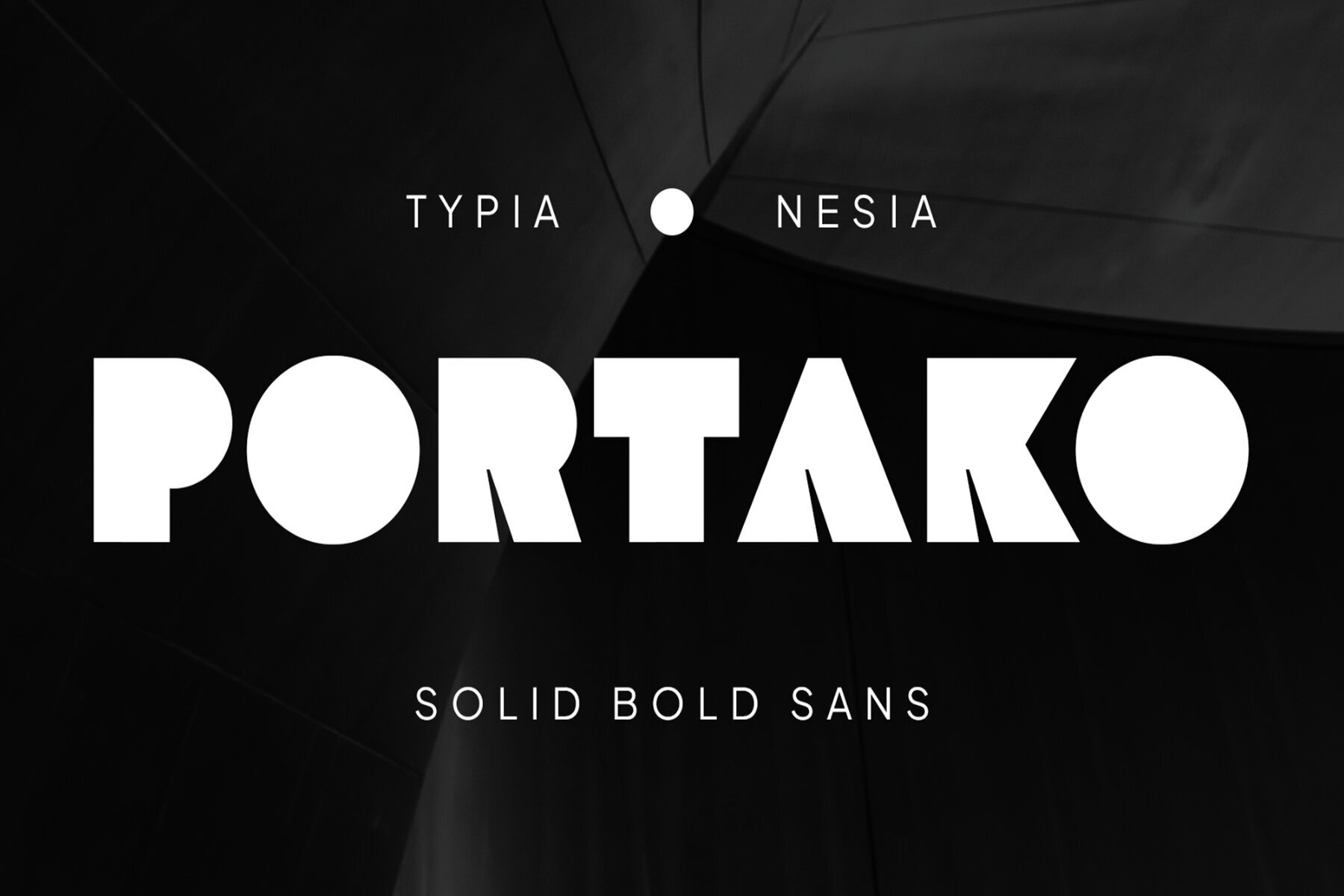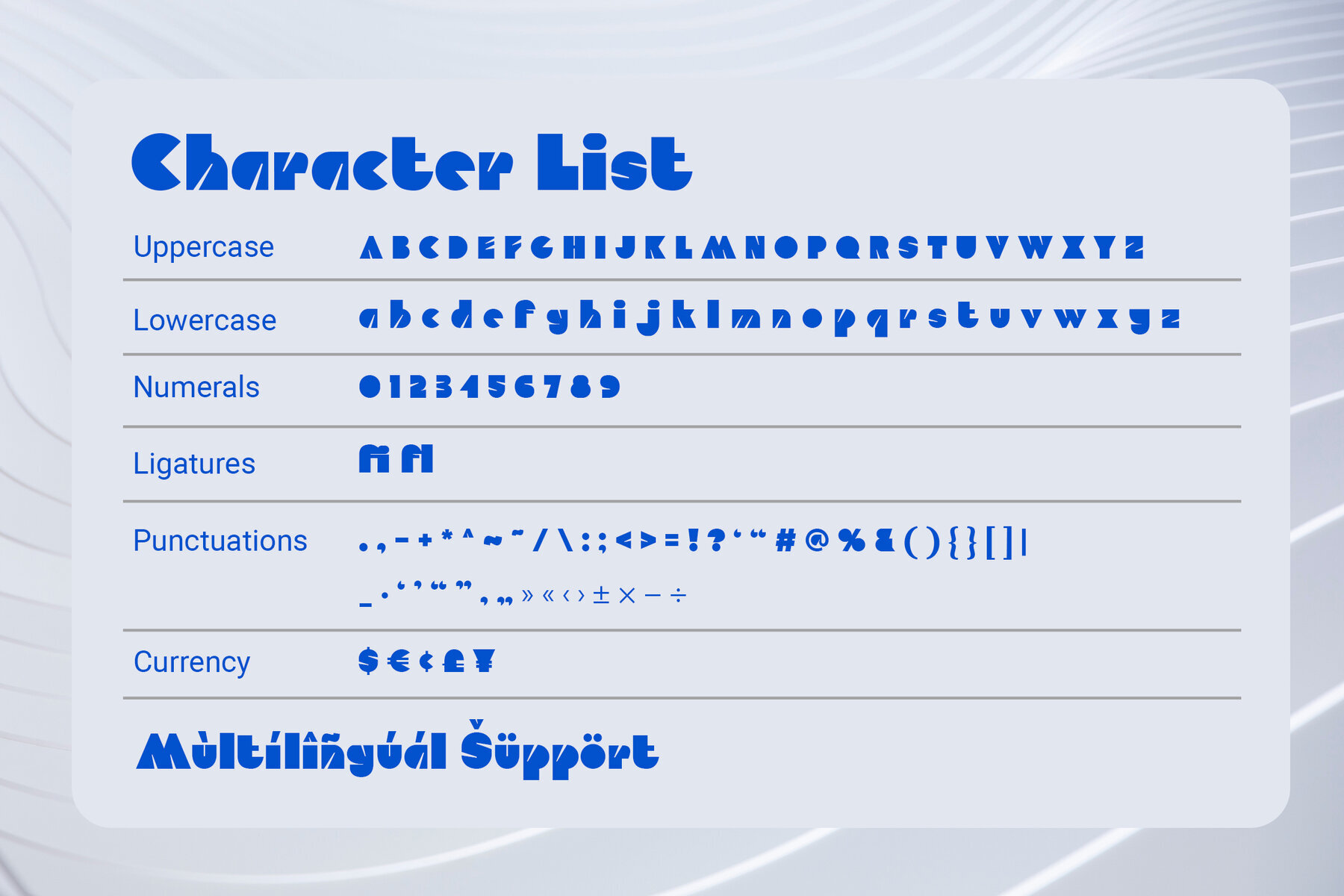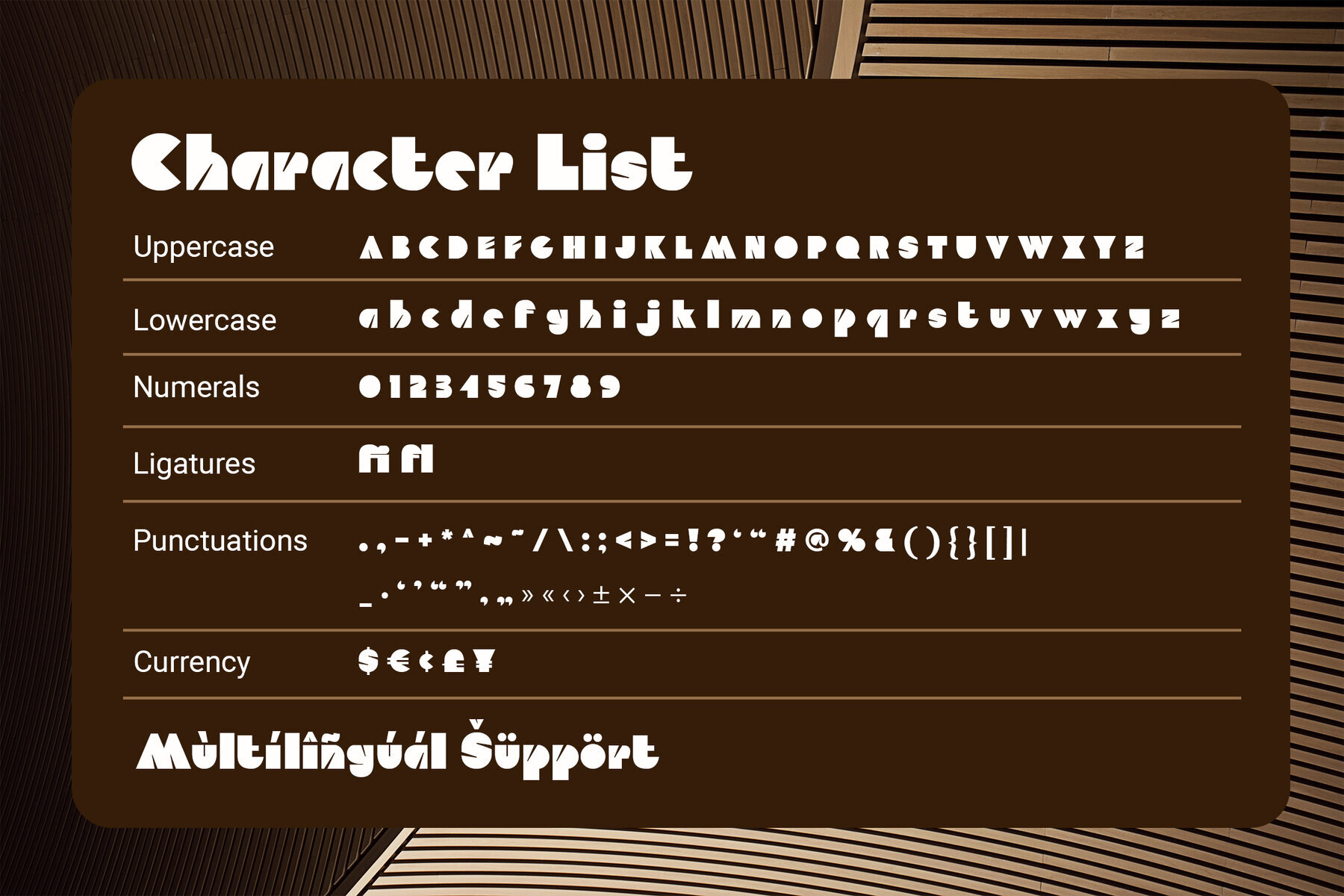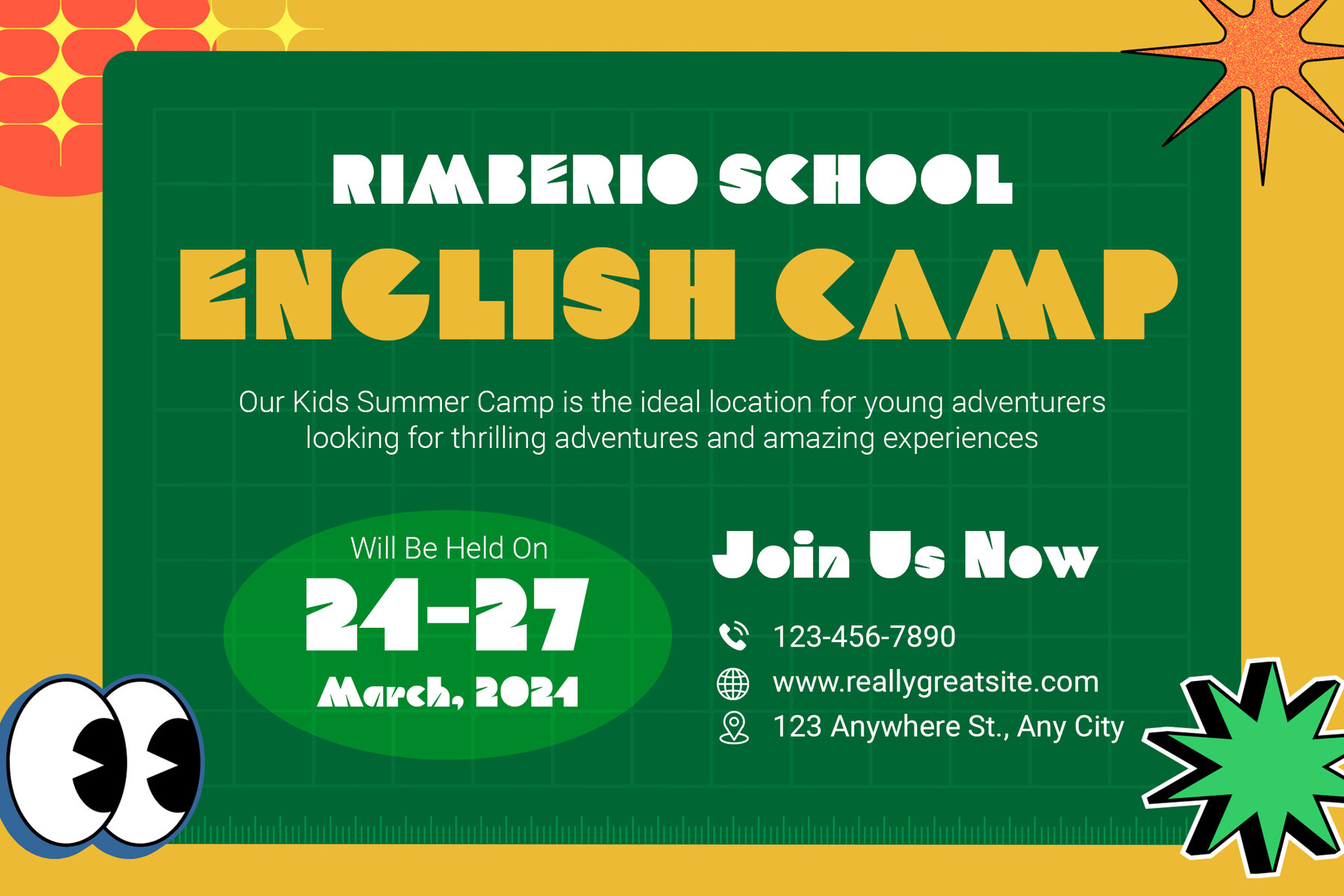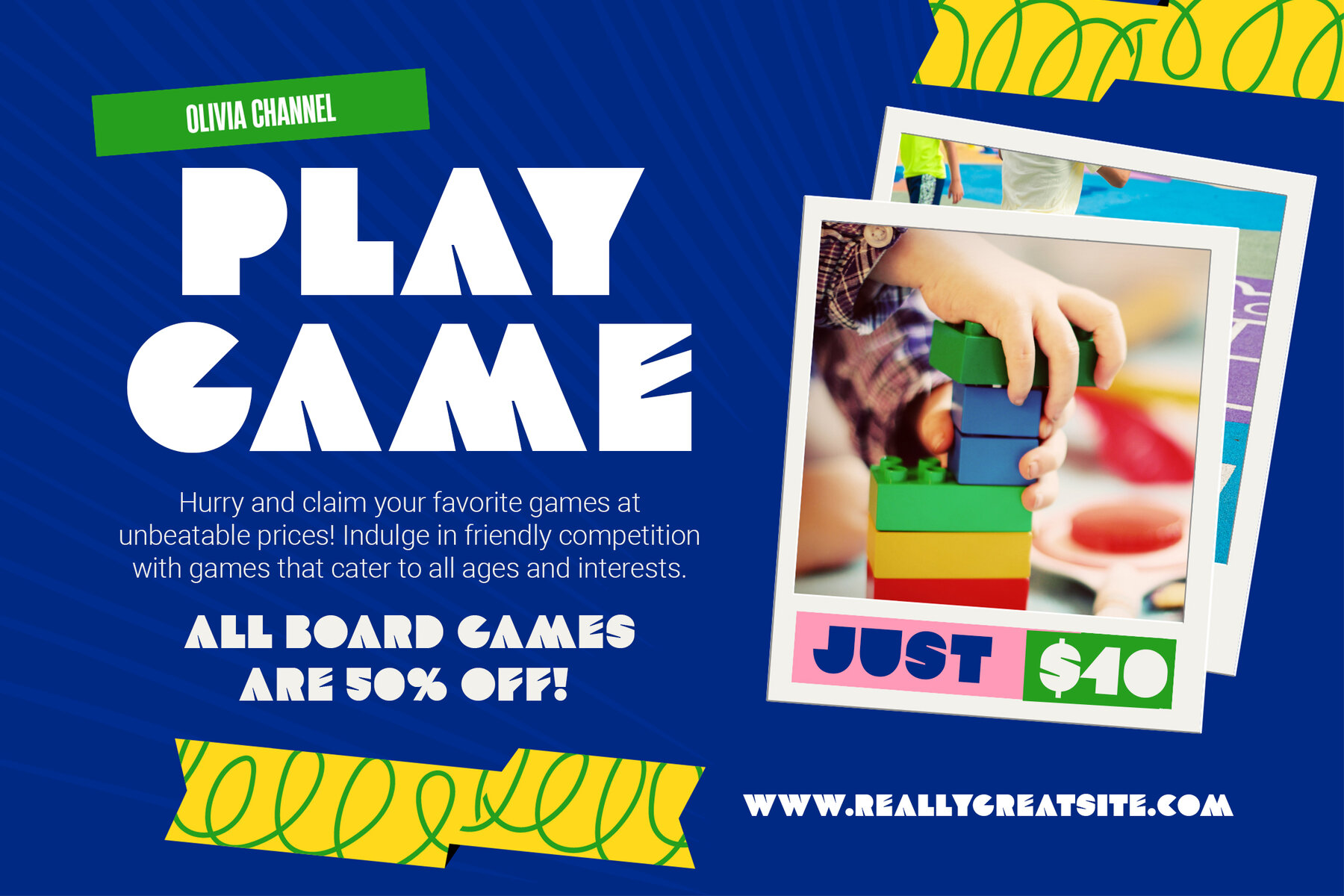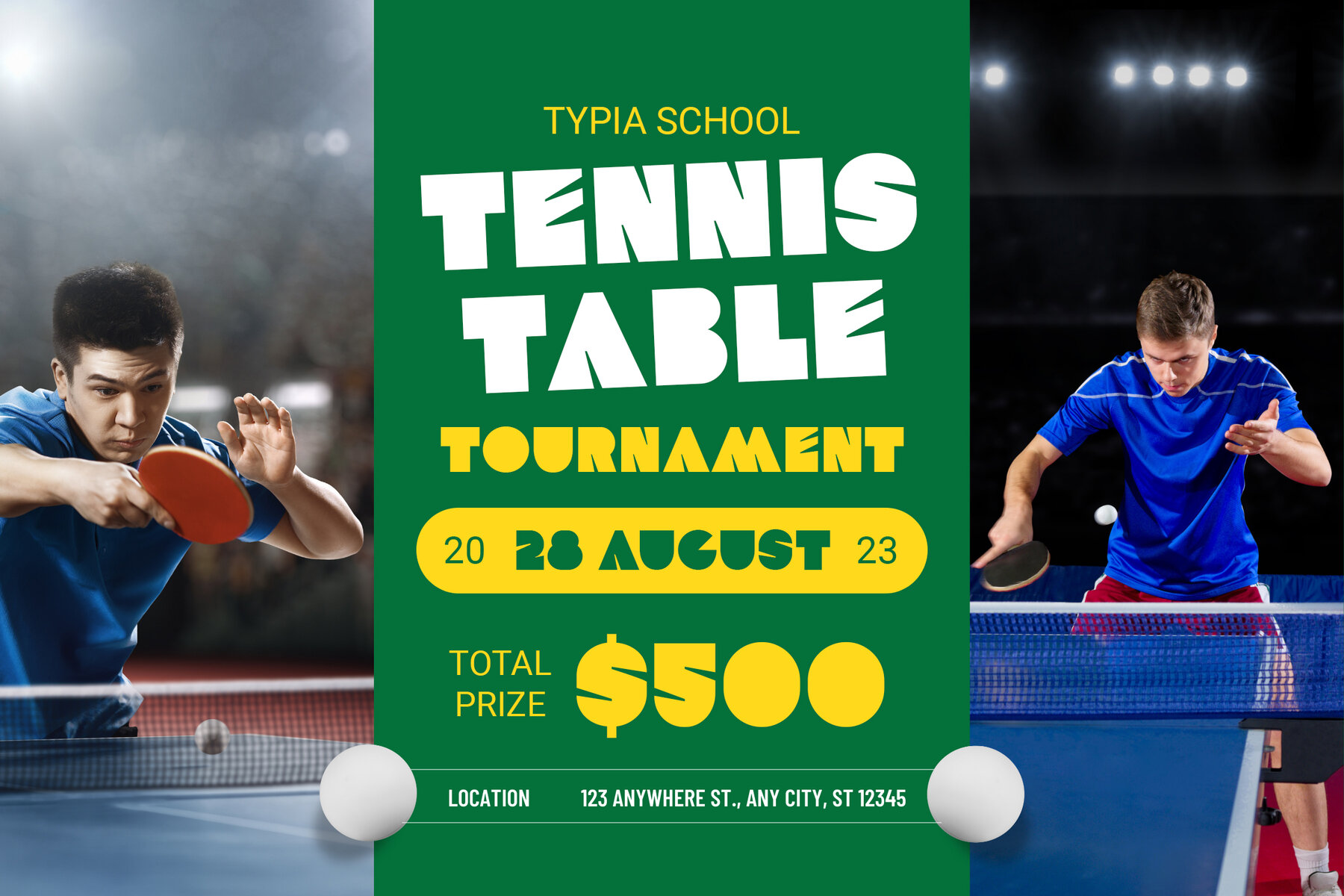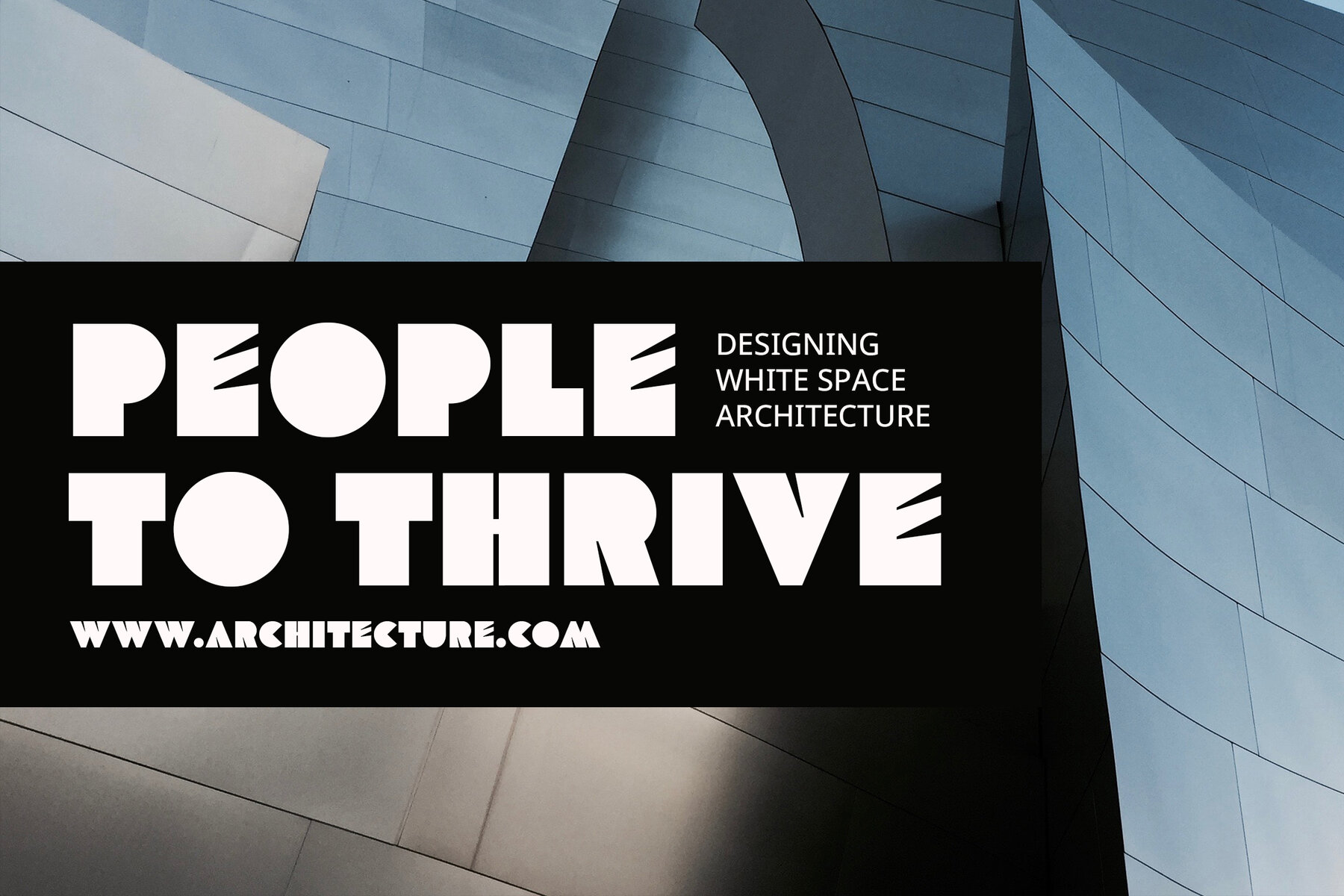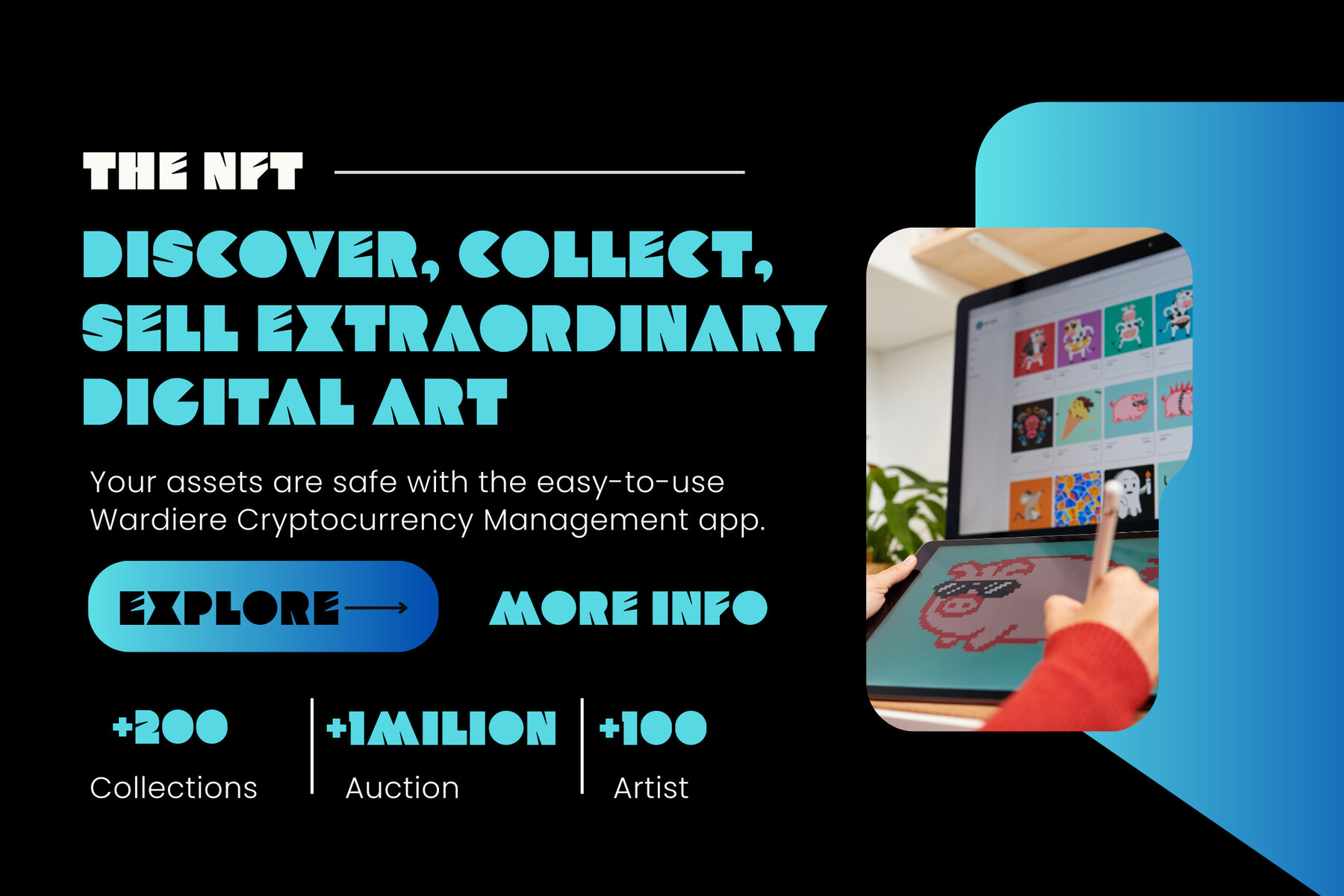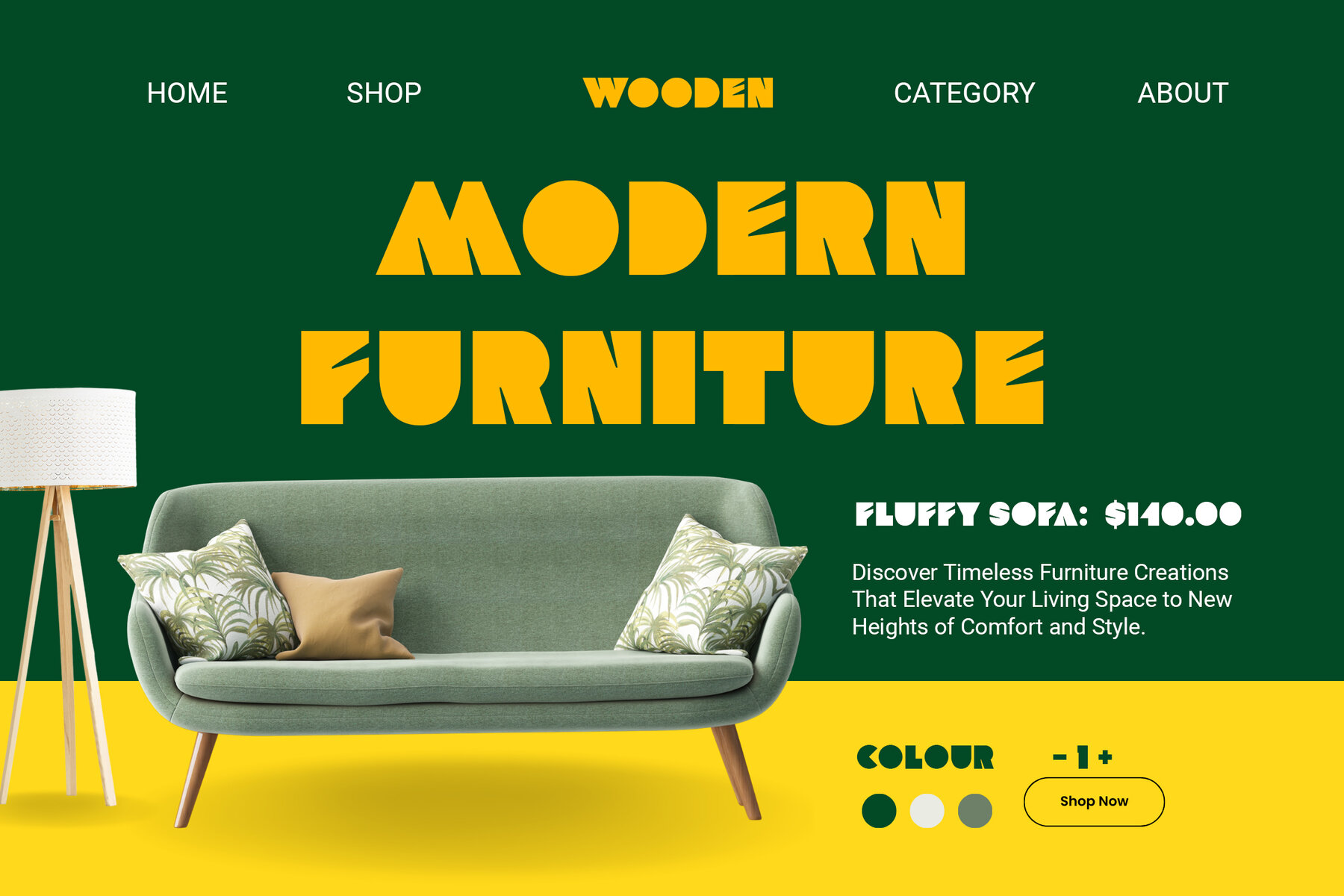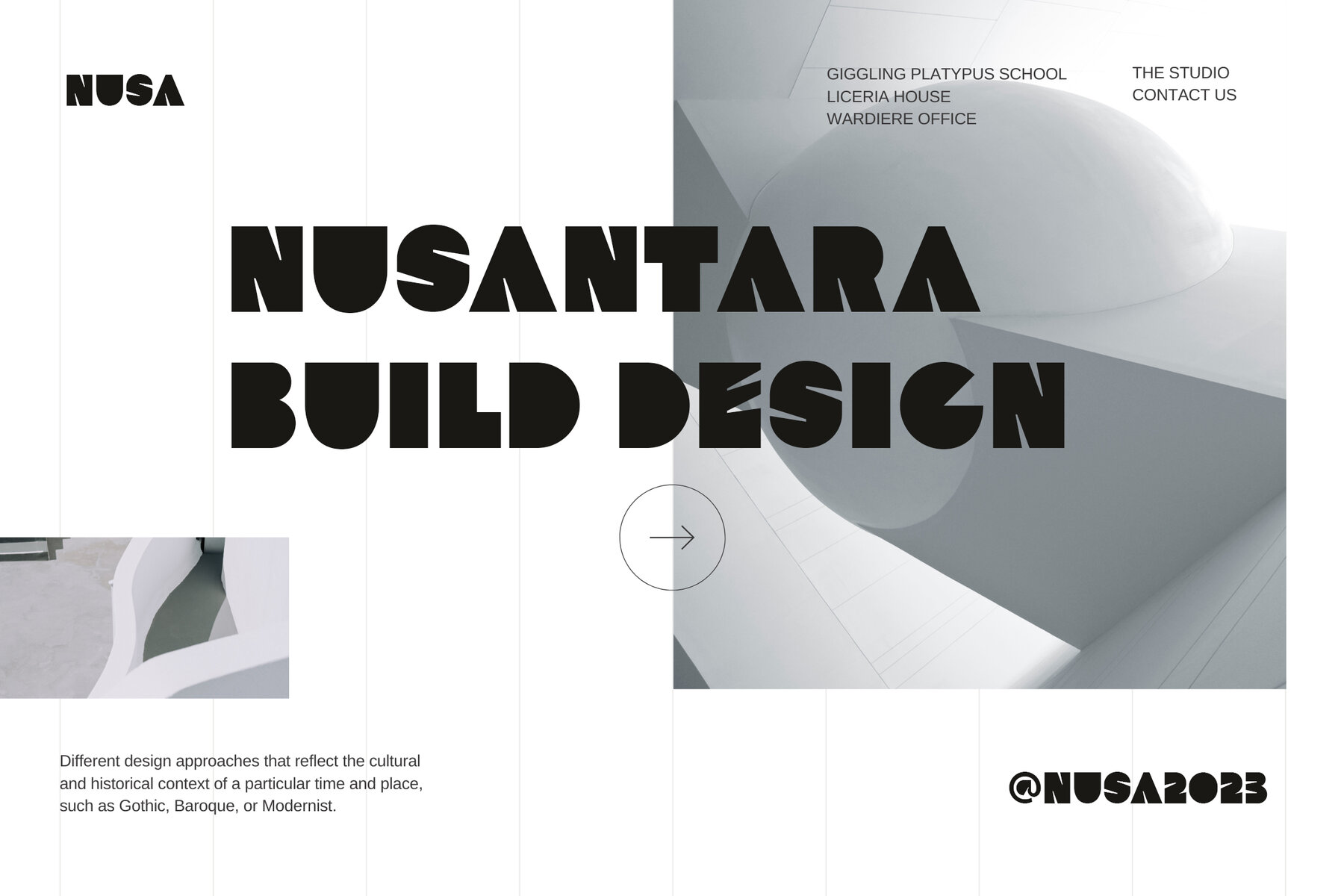
Portako Font
Portako Regular
Portako embodies a Solid Bold Sans design, presenting a modern and impactful aesthetic. Its clean lines and bold presence make it versatile for a variety of applications. Portako with The bold and Solid, ideal for Logos, the font makes it suitable for creating impactful logos that stand out. Headings and Titles, Portako can be used for headings and titles in documents, websites, or presentations to add a strong visual element. You can also apply Portako for Posters or banners, Branding materials, Packaging Products and User Interface (UI) Design, In designing interfaces for apps or websites, Portako can enhance the clarity and readability of text elements. Portako comes with an added touch of sophistication through Feature ligatures, enhancing the overall visual appeal and impact impressive Typography experience.